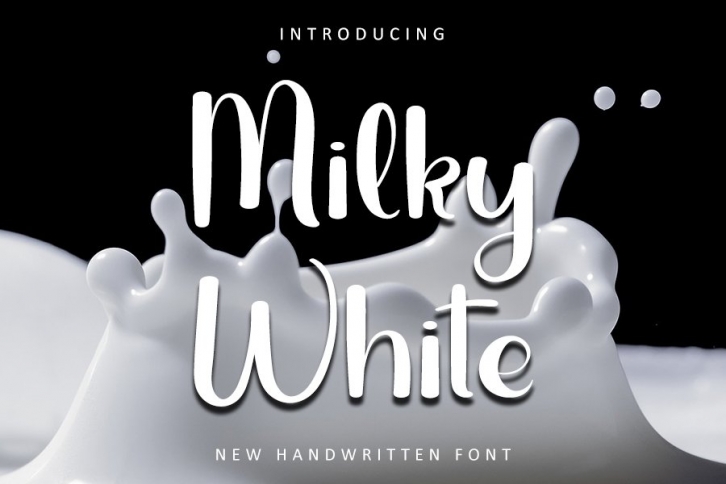
Milky White is a trendy and unique font with an authentic style. It was designed by InermediaSTUDIO and it's a great choice for creative people who need such a font. It was released on April 20, 2022 and the file size is 3.19 MB. Milky White will add an organic vibe to any design idea!